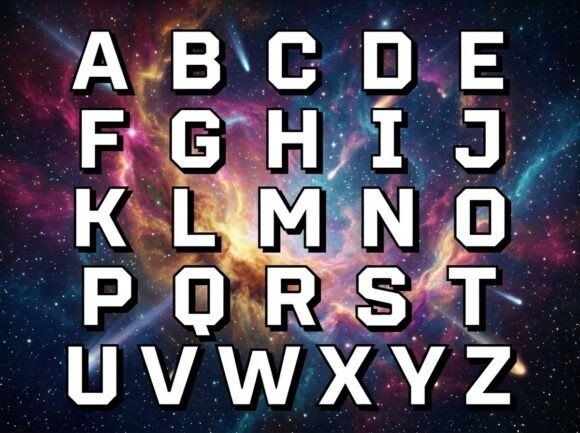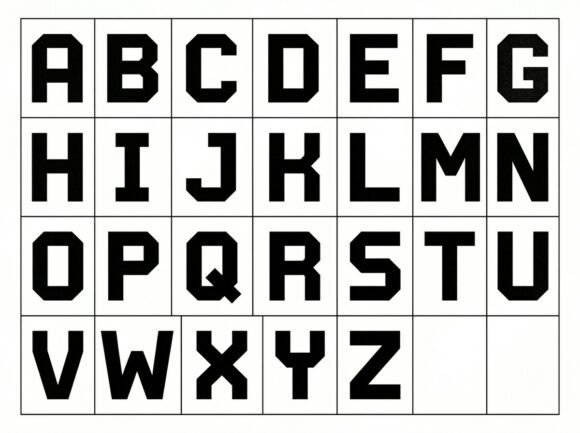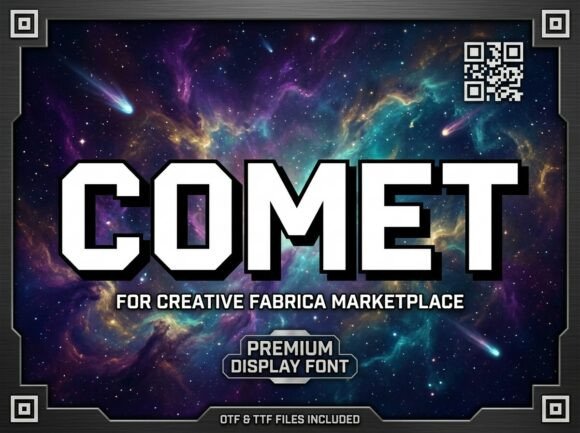
Introducing Comet Font: Elevate Your Designs to New Heights
Are you ready to take your designs to the next level? Look no further than Comet, a premium display font that’s out of this world. With its monumental, geometric letterforms and distinctive chamfered structure, Comet is the perfect choice for designers who want to make a statement. In this article, we’ll explore the features and benefits of Comet, and show you how to use it to create stunning designs that leave a lasting impression.
The Power of Comet Font
Comet is more than just a font – it’s an experience. Its heavy visual weight and sharp, clean angles evoke a sense of architectural strength and futuristic precision, making it perfect for designs that require a sense of grandeur and sophistication. Whether you’re crafting a logo for a tech startup, a standout header for a galactic campaign, or a cinematic movie title, Comet delivers a sense of interstellar power and modern elegance to every word.
What Makes Comet Unique?
So, what sets Comet apart from other fonts? Here are just a few features that make it truly unique:
- Monumental, geometric letterforms: Comet’s letterforms are inspired by monumental architecture, with clean lines, sharp angles, and a sense of grandeur.
- Distinctive chamfered structure: The chamfered structure of Comet’s letterforms adds a touch of futuristic precision, giving it a truly otherworldly feel.
- Heavy visual weight: Comet’s heavy visual weight makes it perfect for designs that require attention-grabbing impact.
- Sharp, clean angles: The sharp, clean angles of Comet’s letterforms create a sense of modern sophistication and elegance.
Perfect for High-Impact Designs
Comet is the perfect choice for designers who want to create high-impact designs that leave a lasting impression. Here are just a few examples of how you can use Comet:
- Cinematic movie titles: Comet’s monumental, geometric letterforms and heavy visual weight make it perfect for cinematic movie titles that require a sense of grandeur and drama.
- Sci-fi gaming logos: The futuristic precision and sharp, clean angles of Comet make it a natural fit for sci-fi gaming logos that require a sense of modern sophistication and edge.
- Aerospace branding: Comet’s sense of architectural strength and interstellar power make it perfect for aerospace branding that requires a sense of grandeur and exploration.
- High-energy sports marketing: The heavy visual weight and sharp, clean angles of Comet make it perfect for high-energy sports marketing that requires attention-grabbing impact and modern sophistication.
Tips for Using Comet Font
Here are just a few tips for using Comet to create stunning designs:
- Use it sparingly: Comet’s heavy visual weight and sharp, clean angles make it perfect for headlines and titles, but use it sparingly to avoid overwhelming your design.
- Experiment with colors: Comet’s monumental, geometric letterforms look stunning in bold, bright colors that match your brand’s personality.
- Pair it with a sans-serif font: Comet pairs perfectly with sans-serif fonts that have a clean, modern feel, creating a harmonious contrast that adds visual interest to your design.
In conclusion, Comet is a premium display font that’s out of this world. With its monumental, geometric letterforms, distinctive chamfered structure, and heavy visual weight, Comet delivers a sense of interstellar power and modern sophistication to every word. Whether you’re a designer, craftsperson, or simply someone who appreciates great design, Comet is the perfect choice for anyone who wants to take their designs to new heights.